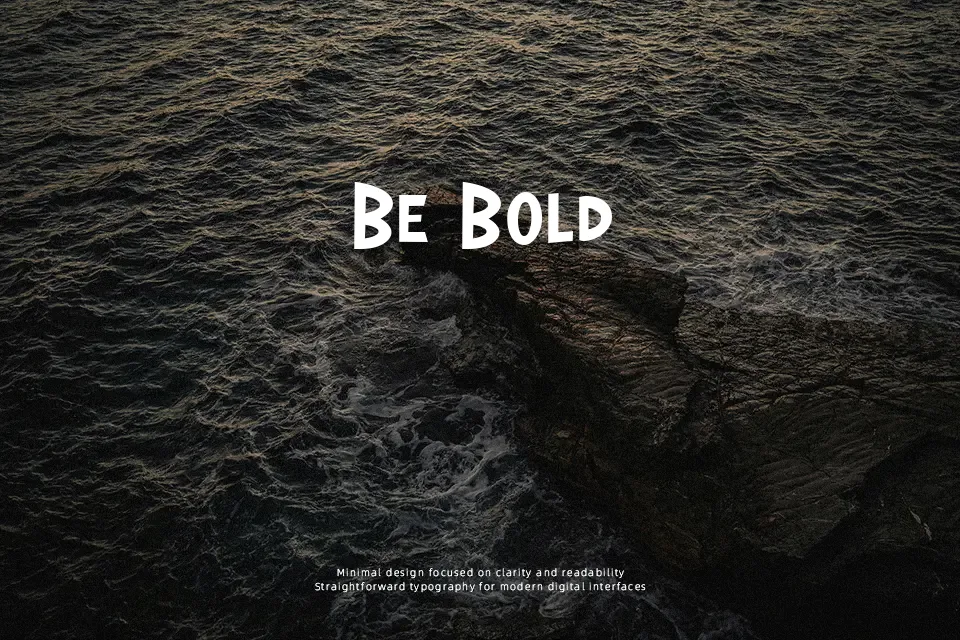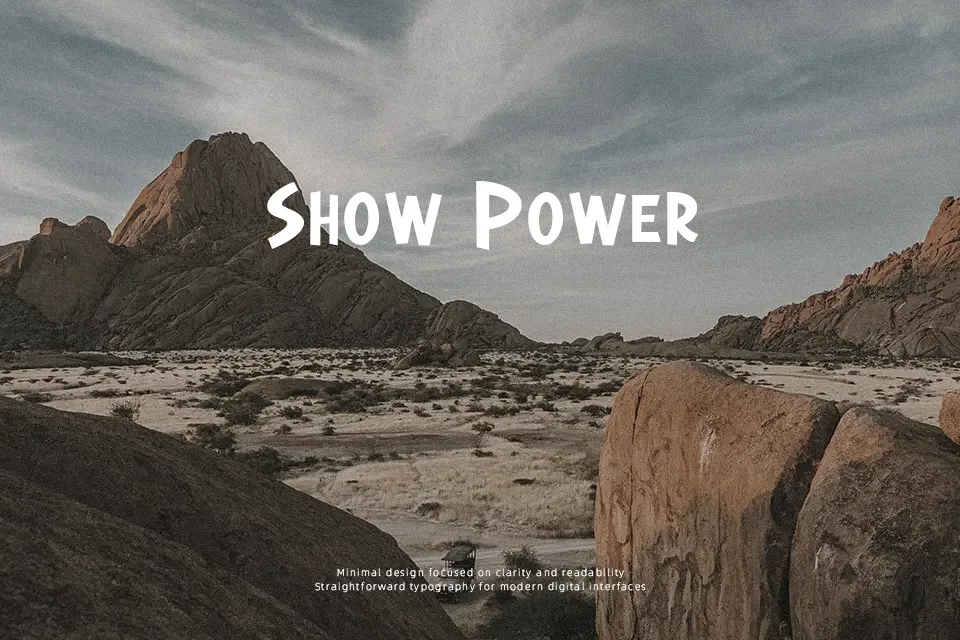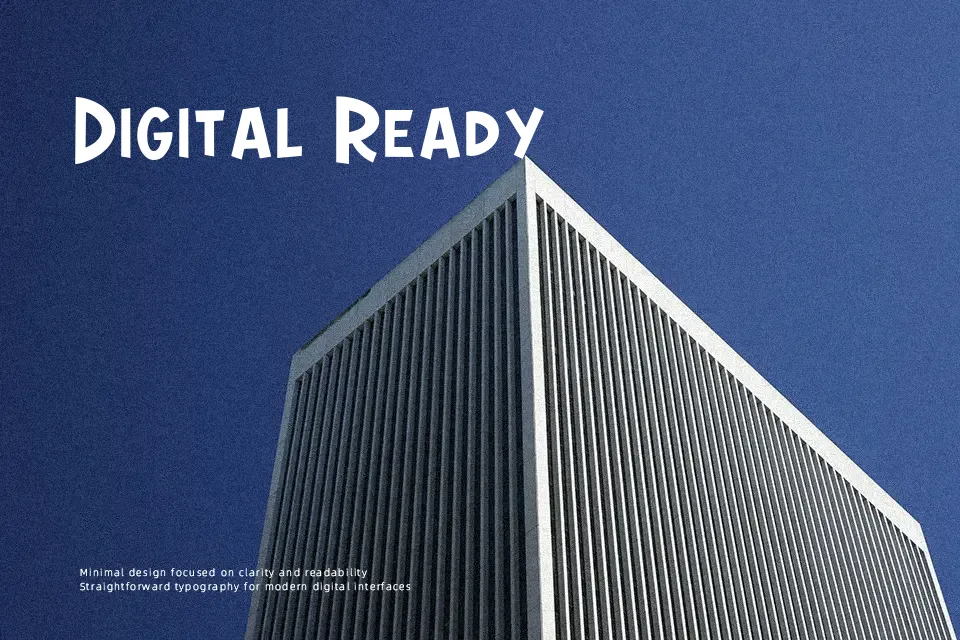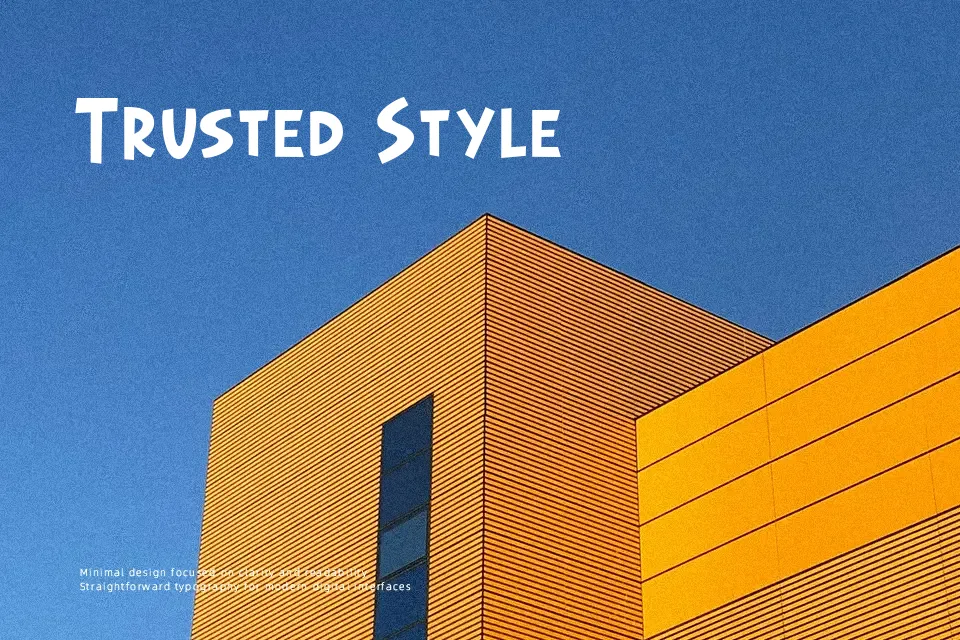
Komika Font
Designed by Creatype Studio
Loose, hand-drawn strokes and uneven letter spacing give Komika a distinctly comic-book rhythm. The characters lean into exaggerated curves and slightly rough outlines, creating a casual, animated feel rather than polished precision. It carries a playful, informal tone that works naturally in dialogue text, cartoon captions, or youth-oriented graphics. However, its irregular spacing and strong personality make it harder to read in dense paragraphs or formal layouts. It performs best when used in short bursts—like headings or speech bubbles—where its expressive style enhances the message instead of distracting from it.
comic speech bubbles
kids event posters
youtube thumbnail titles
gaming overlays
minimalist branding systems
small UI text